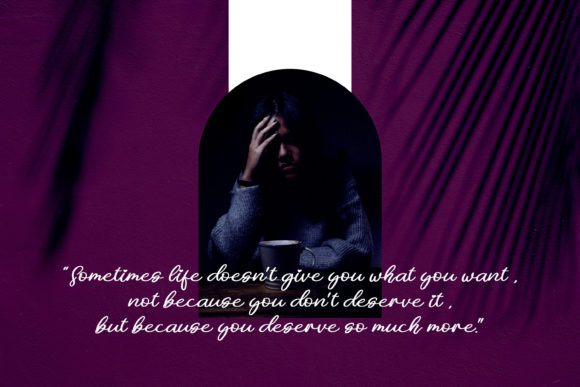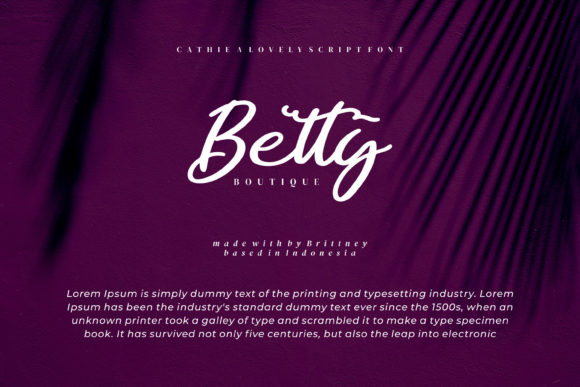
Cathie Font
db-ku.com - Script & Handwritten -- Cathie is a ravishing handwritten font. This versatile script font has a wide spectrum of applications ranging from greeting cards to headlines and is guaranteed to add a romantic feel to your next project.